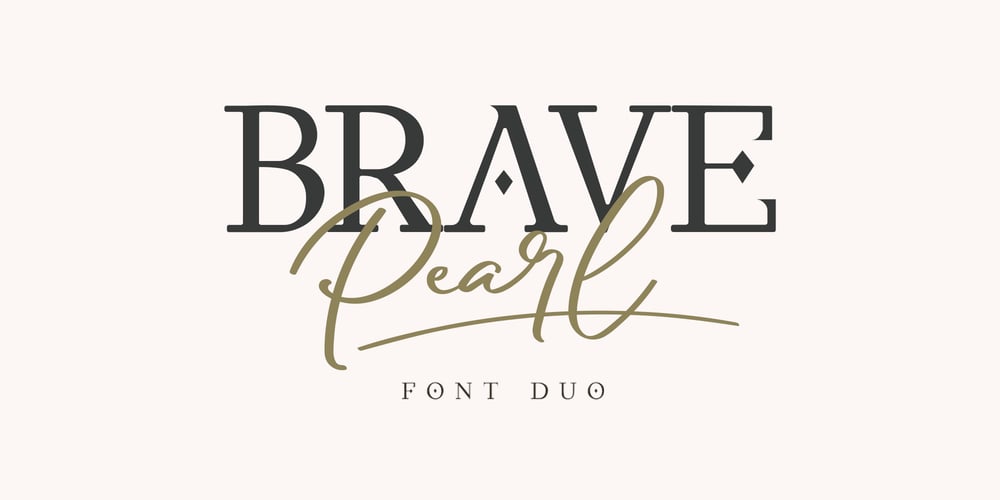
Brave Pearl Font Family was designed by Aditya Rezki Apriyadi and published by EmbunStudio2018. Brave Pearl contains 2 styles and family package options. Let’s explore and deep dive the beauty and magnificent of serif and script font . .” Black Pearl “Second only to classic white, black pearls are the most popular type of pearl. Although they are commonly referred to as black, the pearls have a wide range of colors and tones. this is why the name of this font is “Black Pearl”With seamless curved and style in every corner of the character, deliver a good and elegant looks to every project that you work on it.Let’s experience to use it and work with it, giving your every piece of art life and luxury feelsCan’t wait to see this beauty and magnificent font to be on your project !! It will be great !